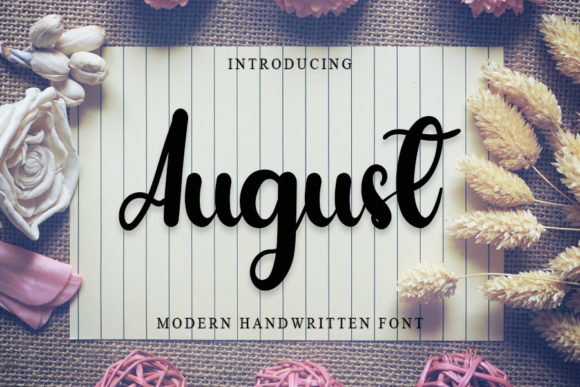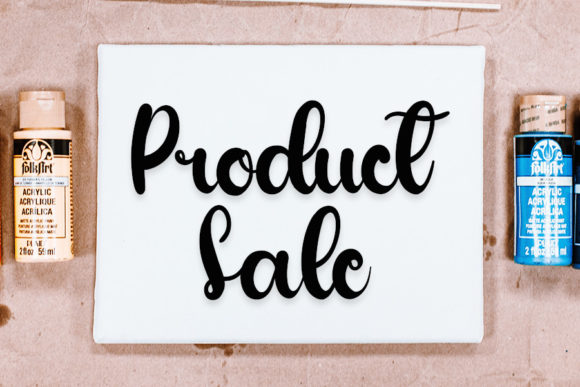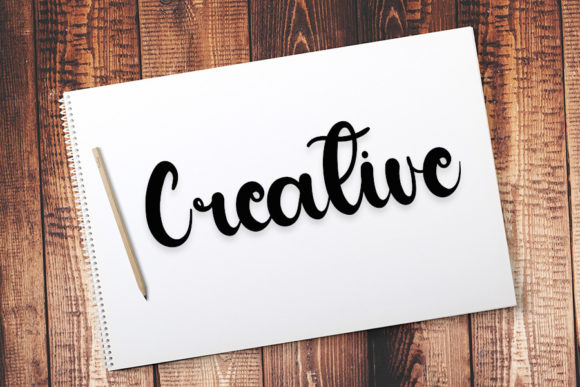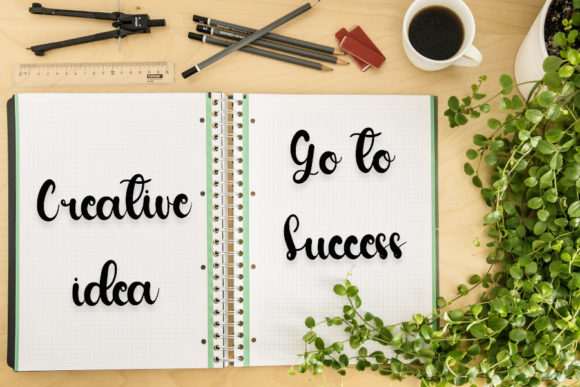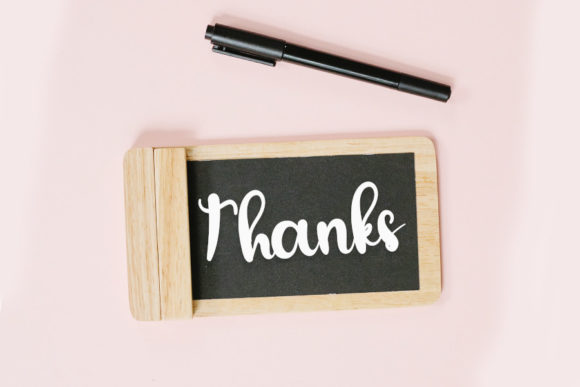
August Font
August is a friendly handwritten font that has been meticulously crafted to become a beloved favorite. Balancing classy calligraphic influences with a contemporary and fresh feel, August aims to provide a versatile and timeless option for designers and enthusiasts. This font goes beyond being a mere typeface; it aspires to be a go-to choice for various design applications.
The friendly and approachable nature of August makes it suitable for a wide range of design projects. Whether used for branding, logos, invitations, or other creative endeavors, August injects a sense of warmth and contemporary charm into your designs.
By maintaining a delicate balance between classy calligraphic influences and a modern aesthetic, August proves to be adaptable and enduring. It is a font that seamlessly fits into diverse design contexts, ensuring that your projects remain both stylish and relevant.
One standout feature of August is its PUA encoding, providing users with easy access to a rich variety of amazing glyphs and ligatures. This feature enhances the font’s creative potential, offering designers the freedom to explore unique character combinations and flourishes effortlessly.
In summary, August is not just a font; it’s a friendly and versatile design tool that harmoniously blends classic calligraphy with a contemporary touch. With PUA encoding, designers can effortlessly access its amazing glyphs and ligatures, making it a user-friendly option for creating visually appealing and stylish designs. Whether applied to branding or other creative projects, August is poised to become a true favorite in your design toolkit.